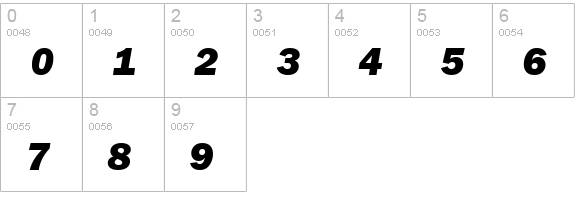
FranklinGothHeavyCTT Italic Font Details
FranklinGothHeavyCTT Italic is a distinctive, italic variant in the FranklinGothHeavyCTT typeface family \xE2\x80\x94 well suited to design and typography projects.
FranklinGothHeavyCTT Italic font is a bold and striking typeface that exudes elegance and sophistication. Its sharp angles and sleek lines make it perfect for creating designs that demand attention. The italic style adds a touch of flair and modernity to any project. What makes FranklinGothHeavyCTT Italic font even more appealing is that it is available for free download at FontsMarket.com. This means you can easily access and use this stunning font in your projects without any cost. Whether you're designing a logo, creating a poster, or working on a website, FranklinGothHeavyCTT Italic font is sure to make a bold statement and elevate your design to the next level. Don't miss out on this amazing opportunity to enhance your work with this standout typeface. Download it now and let your creativity shine!